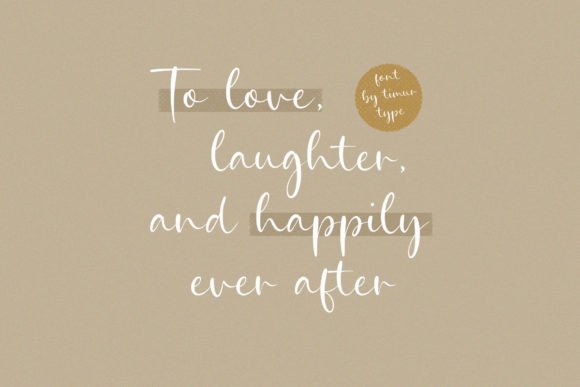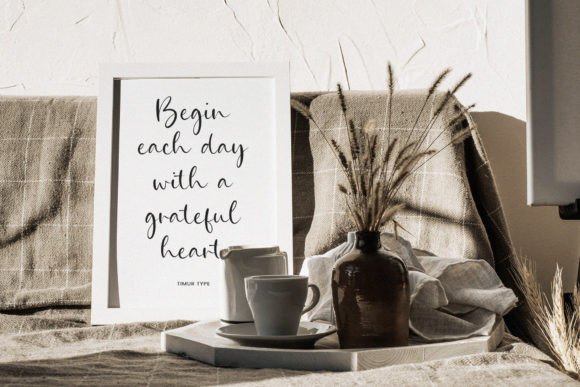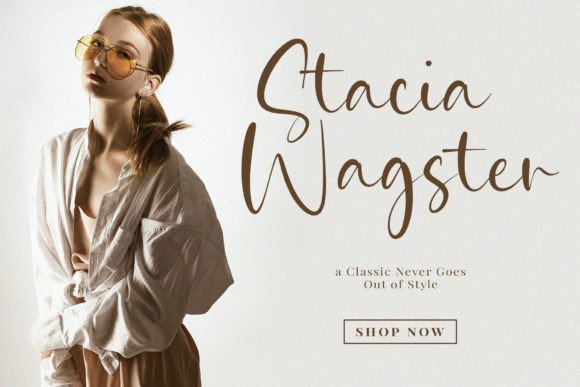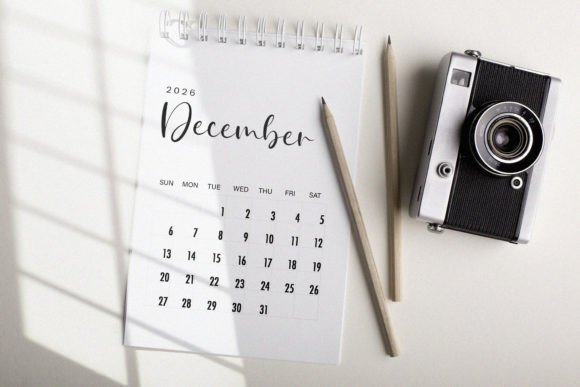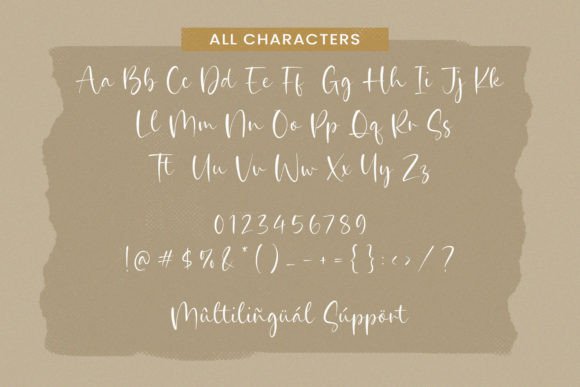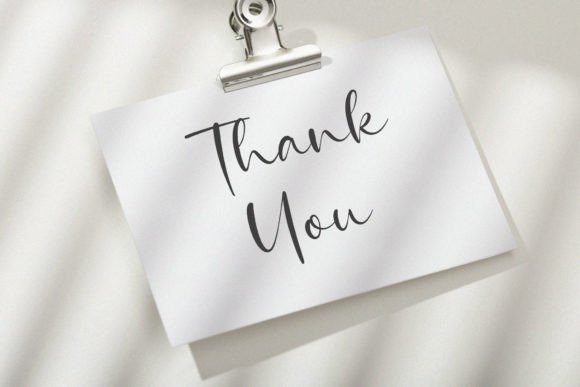
Introduction to Fashion History Font
Imagine you’re a fashion designer, pouring over sketches and inspiration boards, trying to bring your latest collection to life. You need a font that not only complements your designs but elevates them to the next level. This is where the Fashion History Font comes in – a stylish and elegant handwritten font that’s perfect for fashion branding or editorial designs.
With its smooth curves and high-quality design, the Fashion History Font is a valuable resource for any designer working on a creative project. Whether you’re creating a campaign for a luxury brand or designing a magazine spread, this font is sure to make a statement. And the best part? It’s available for free download, making it an accessible design resource for designers of all levels.
Fashion History Font
- Unique, high-quality font design ideal for creative projects and design resources.
- Features a transparent background, making it easy to layer over images and other design elements.
- Includes 100+ glyphs, including letters, numbers, and symbols, for a comprehensive design resource.
Honest Review: Fashion History Font
I recently stumbled upon the Fashion History Font, and I must say, it’s a great addition to any design project. The font’s unique style and high quality make it an excellent choice for creative projects that require a touch of elegance.
What works well: ✨ The font’s transparent background allows for seamless integration with any design element, and its high-quality design ensures a professional look. The font’s versatility makes it perfect for a wide range of applications, from fashion magazines to luxury brands.
Some limitations: ⚠️ The font is a bit limited in terms of character set, which might be a concern for designers who need to typeset extensive text. Additionally, the font’s intricate design might be challenging to read in smaller sizes.
Overall, I’m impressed with the Fashion History Font’s potential as a design resource. While it may have some limitations, its unique style and high-quality design make it a valuable addition to any designer’s toolkit. If you’re looking for a creative way to add some flair to your design project, the Fashion History Font is definitely worth considering.
- Perfect for fashion, luxury, and creative projects
- Unique, high-quality design
Fashion History Font
The Fashion History Font is a versatile design resource that can elevate your creative project. This high-quality font is perfect for designers, artists, and historians looking to add a touch of elegance and sophistication to their work. With a transparent background, this font can be easily incorporated into various design elements.
The Fashion History Font is perfect for:
- Designing fashion-related projects, such as fashion magazines or websites.
- Creating historical or vintage-inspired designs.
- Adding a touch of elegance to business or marketing materials.